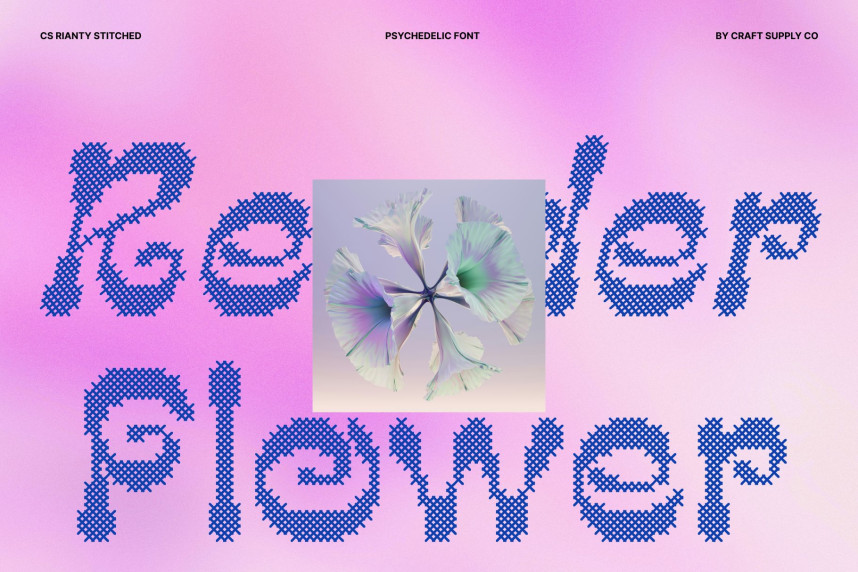
CS Rianty Stitched Font
CS Rianty Stitched Font – Trippy Psychedelic Display Font
Hypnotic Psychedelia with Handcrafted Texture
This is a trippy psychedelic display font that transforms typography into a flowing visual journey. Its liquid-like curves, warped shapes, and stitched texture create a tactile, handcrafted look that feels both dreamy and experimental.